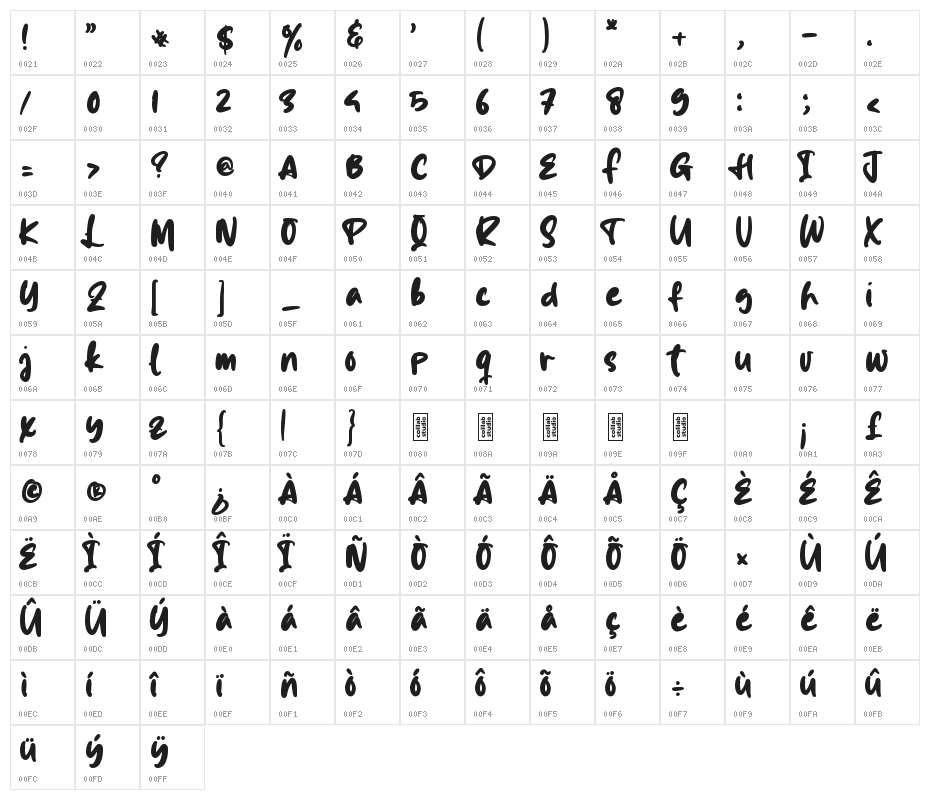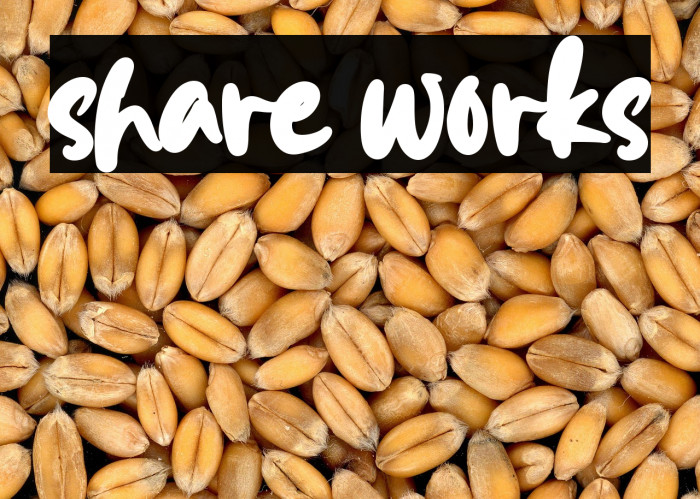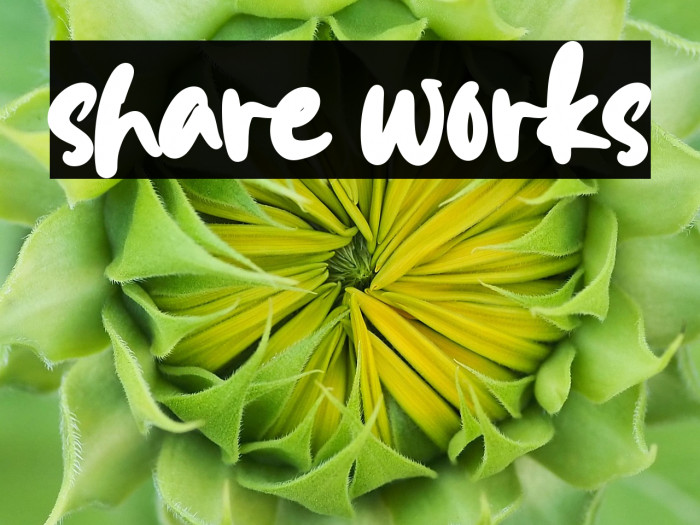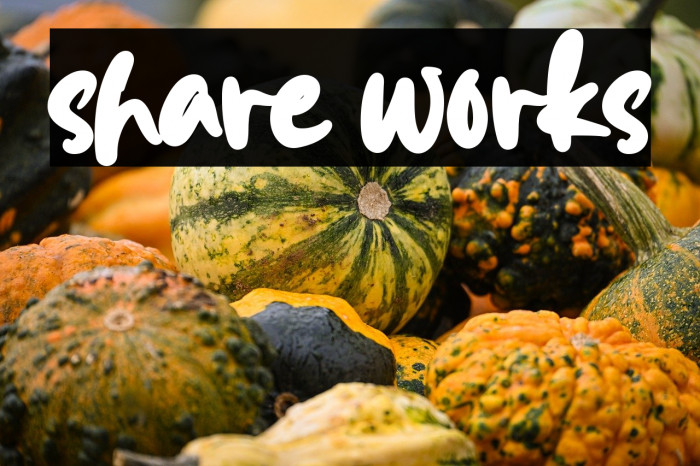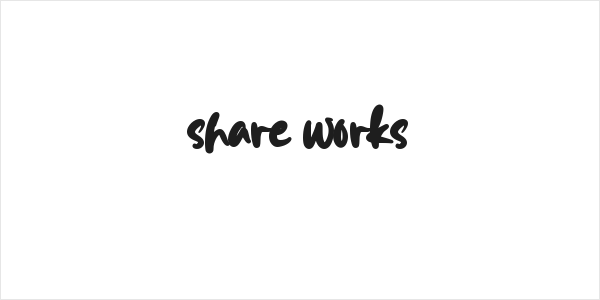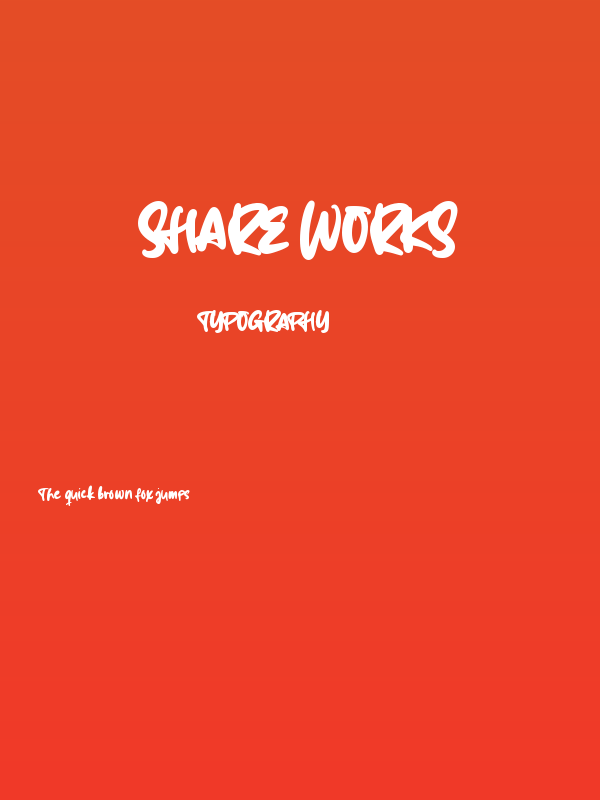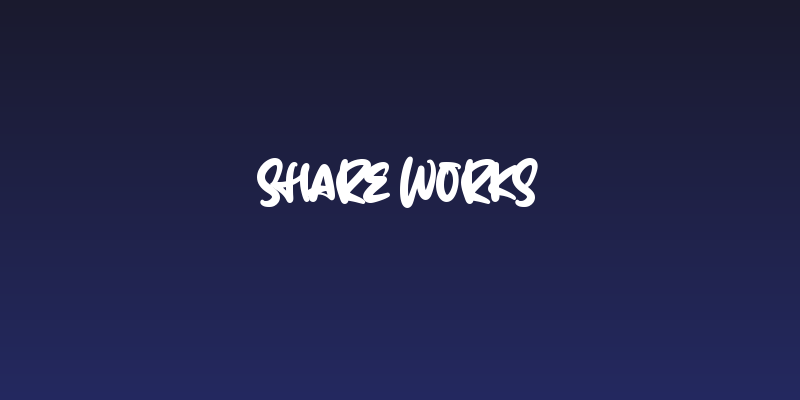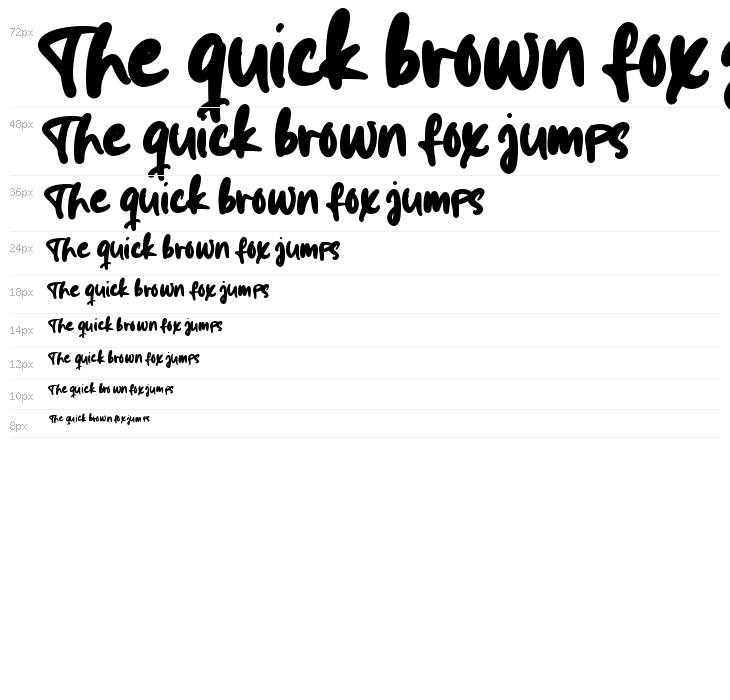
share works Font
share works Description
This font features a bold, handwritten style with a playful and energetic feel. The characters are thick and rounded, giving them a friendly and approachable appearance. The strokes are consistent in weight, contributing to a cohesive look across all letters and numbers. The uppercase and lowercase letters maintain a similar style, with slight variations in form to enhance readability. The numbers are equally bold and maintain the same playful aesthetic. Special characters are included, matching the overall style with a touch of whimsy.
| Use Case | Logos, Headlines, Posters |
| Proposed Projects | Ideal for creative projects such as posters, invitations, and branding materials that require a fun and lively touch. |